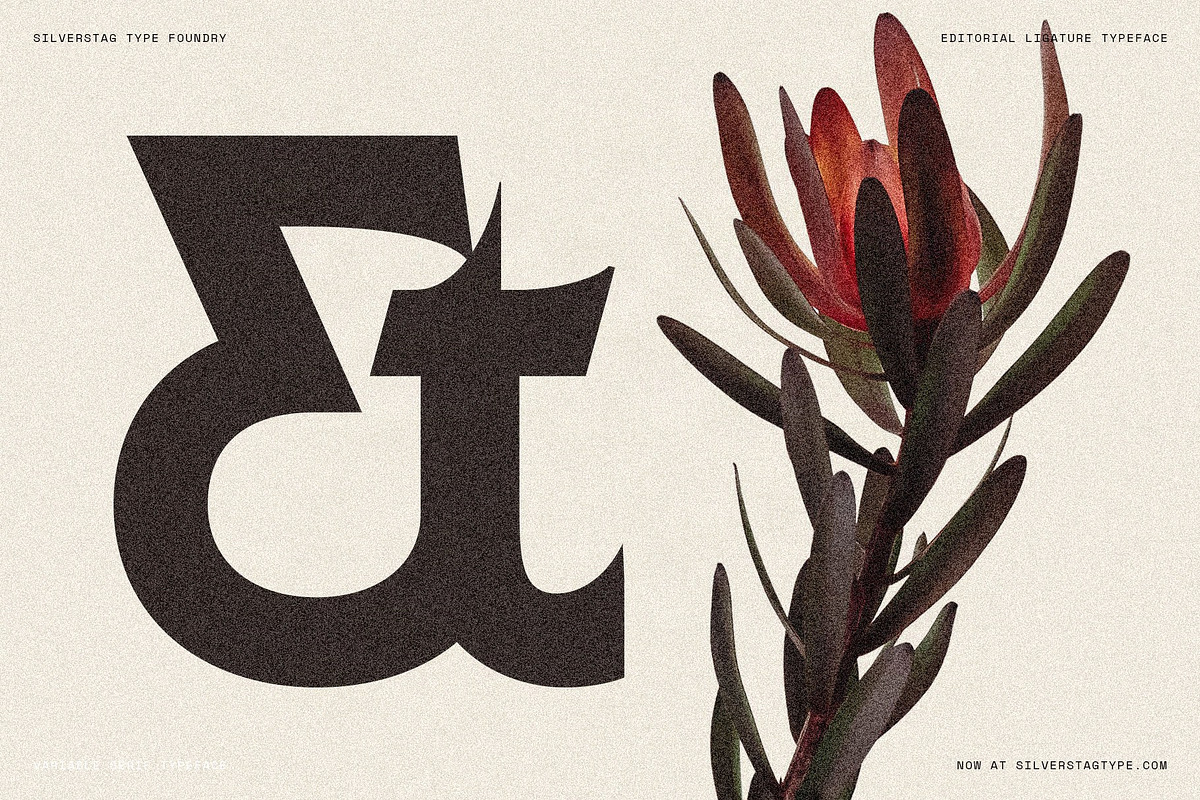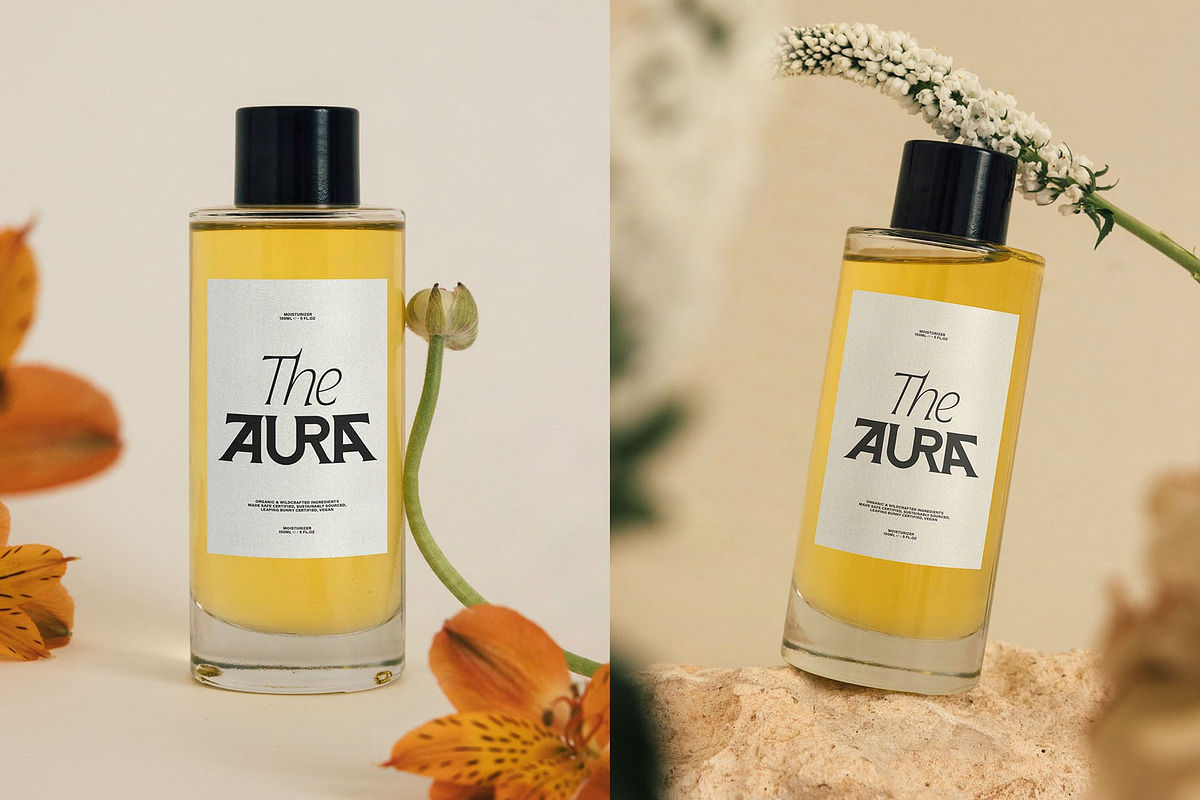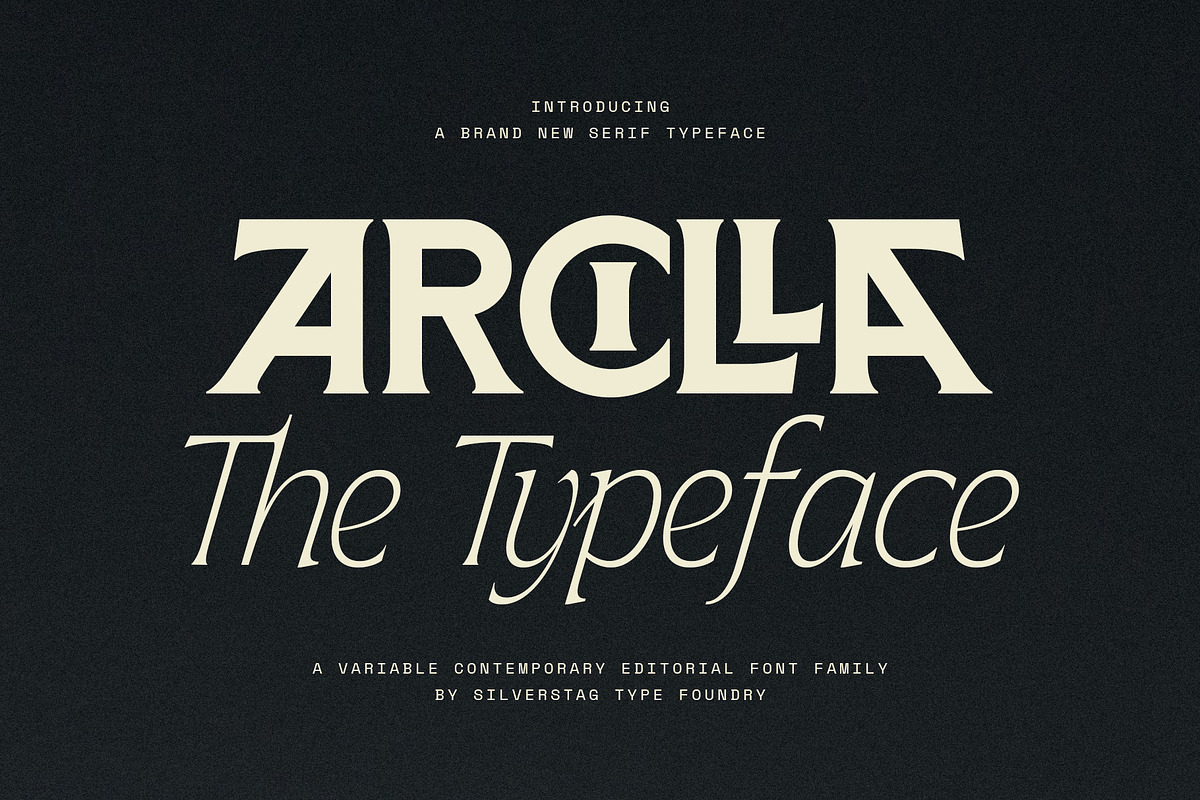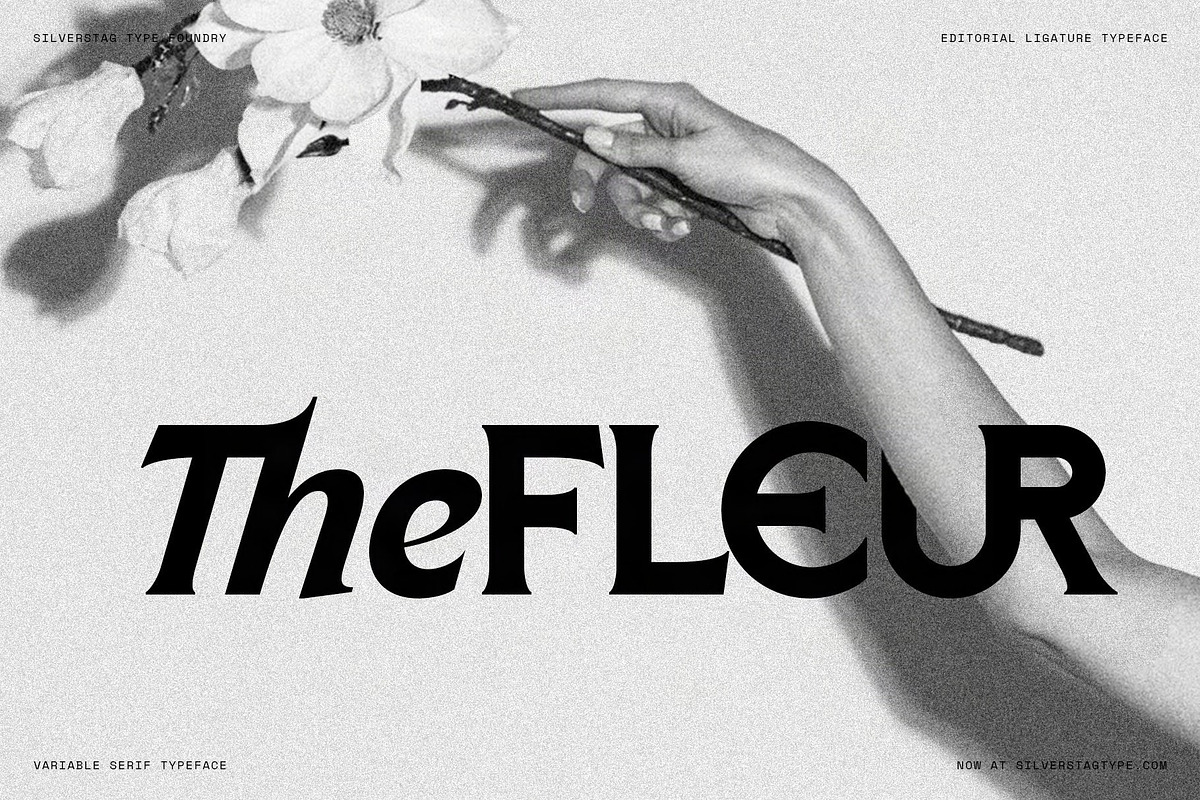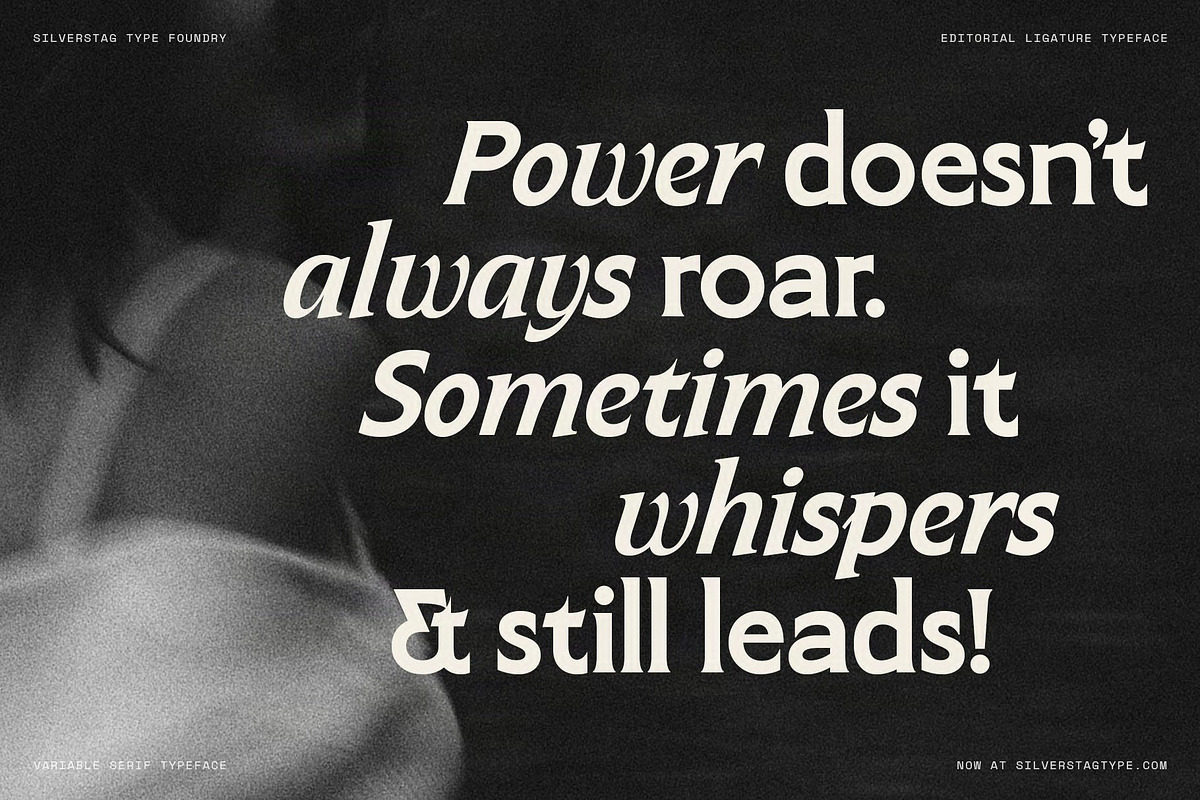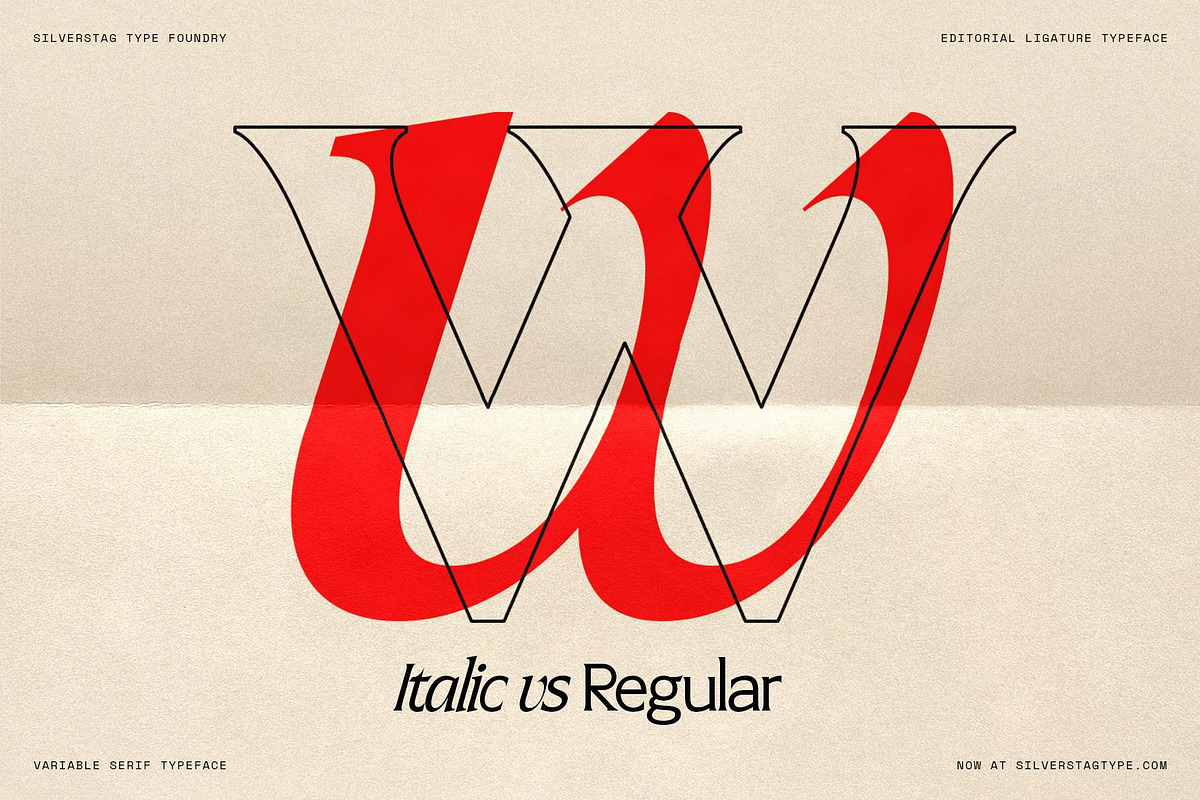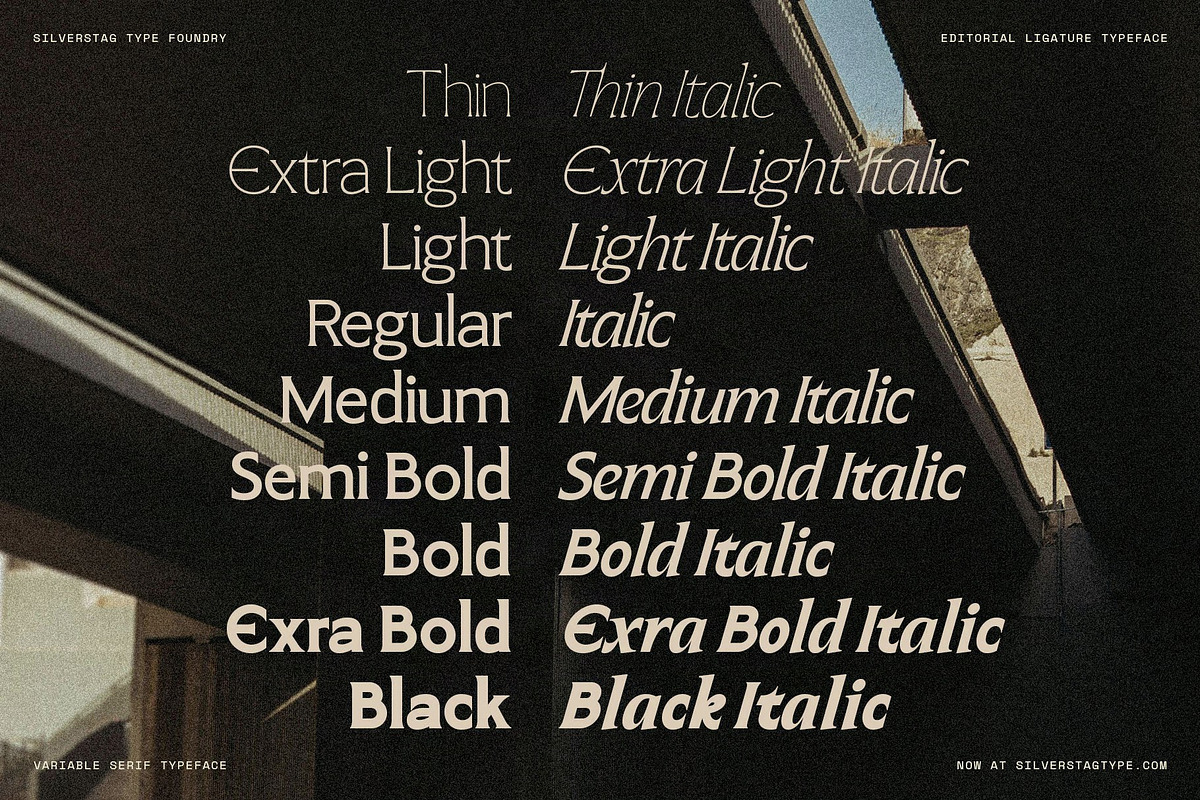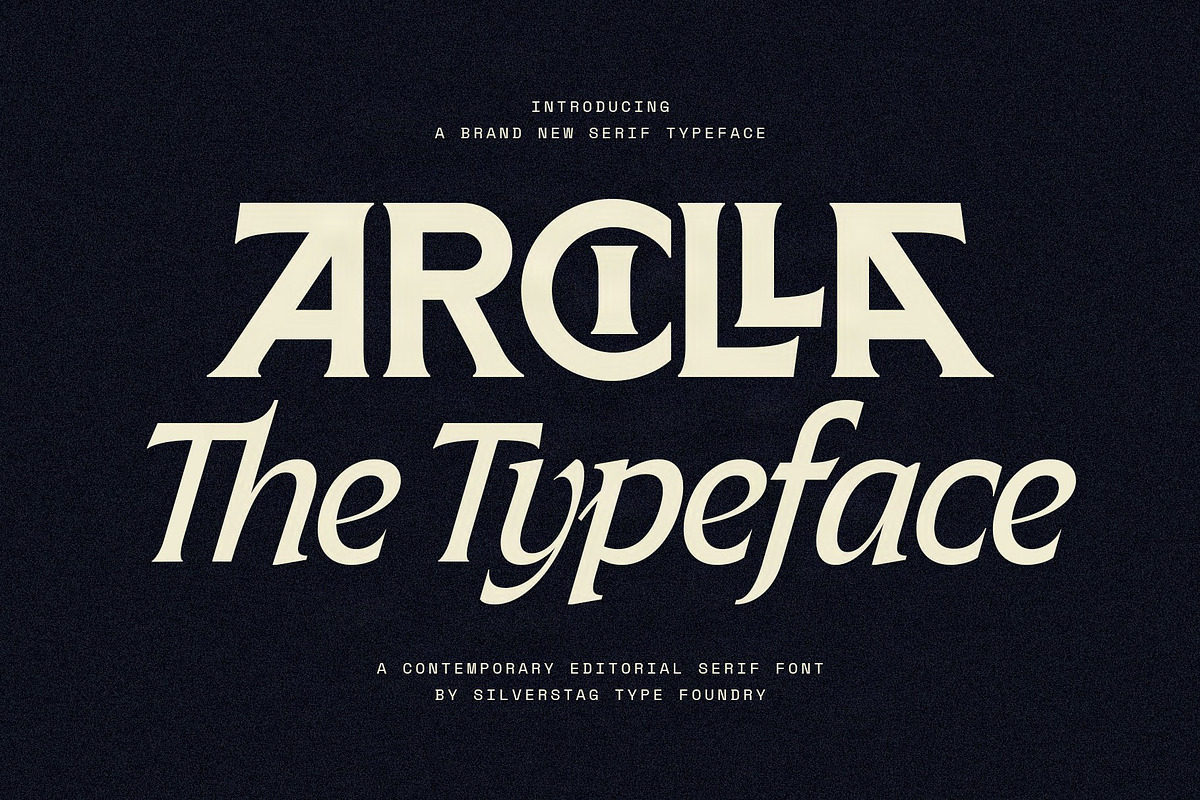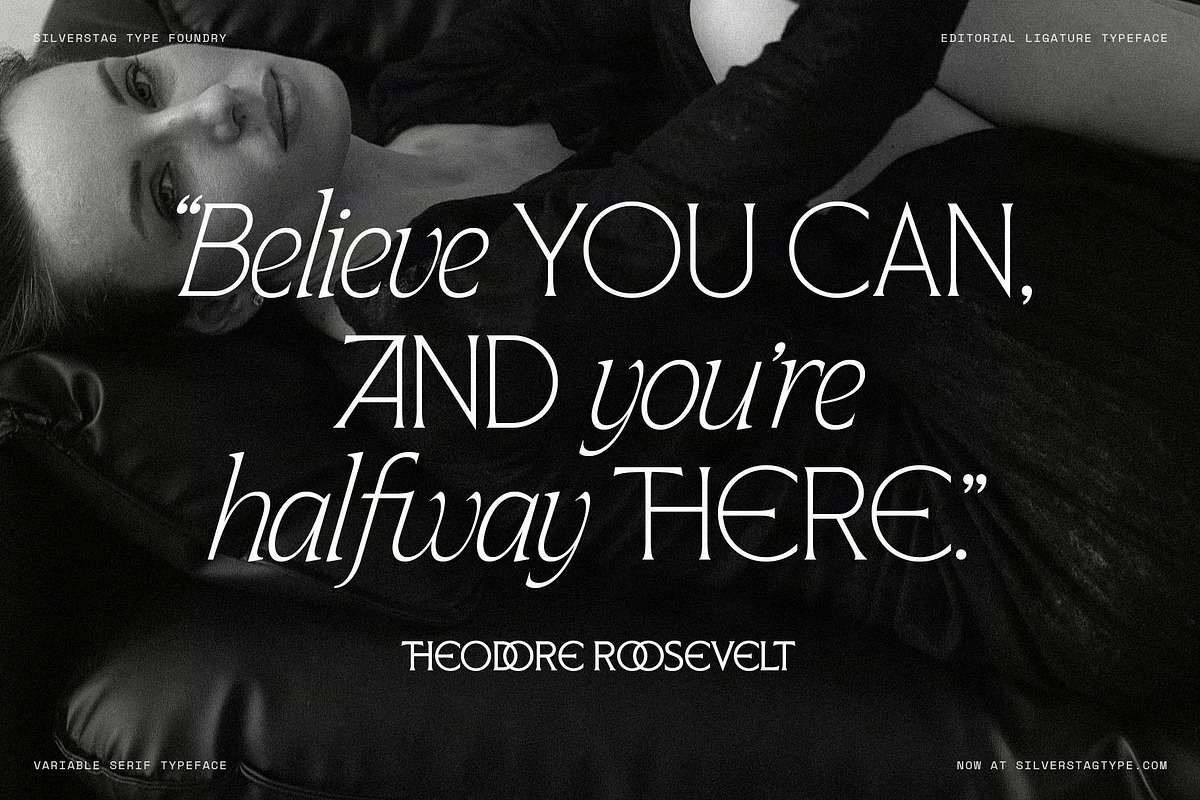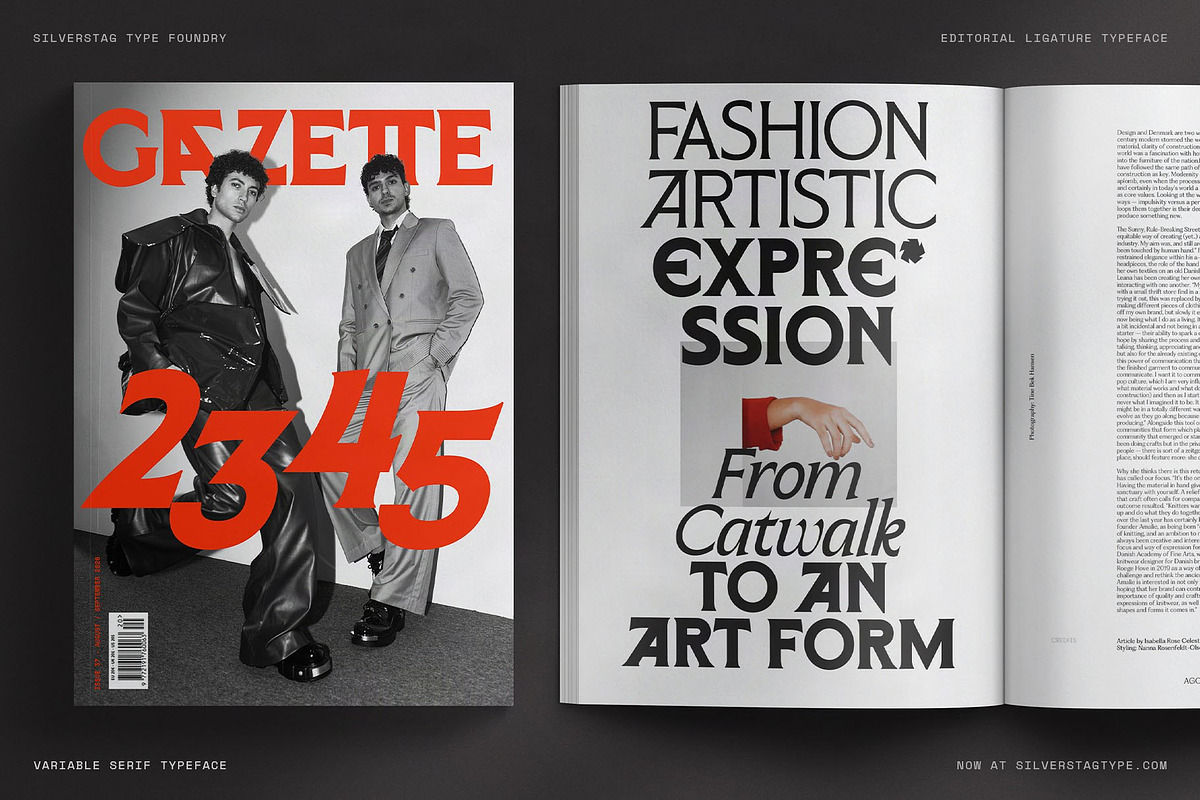
Arcilla — Variable Editorial Serif
Arcilla started as a single weight. This is the full family.
SLTF Arcilla is a variable contemporary editorial serif with 9 weights from Thin to Black, 9 matching italics, and 18 fonts in total. Strong contrast between thick and thin strokes, architectural uppercase letterforms, and italic cuts that carry a genuine calligraphic quality — especially in the ligatures.
Built for editorial design, luxury branding, fashion and lifestyle publishing, packaging, book covers, and advertising. Light enough to carry body text. Heavy enough to command a cover.
- 18 static fonts (9 upright + 9 italic)
- 40+ ligatures and stylistic alternates